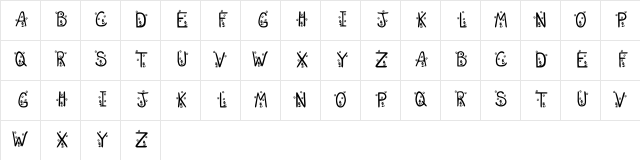
KR Sara's New Kitten Regular
Design Context for KR Sara's New Kitten Typeface
KR Sara's New Kitten is a composed and adaptable typeface that performs quietly and consistently across a wide range of design contexts.